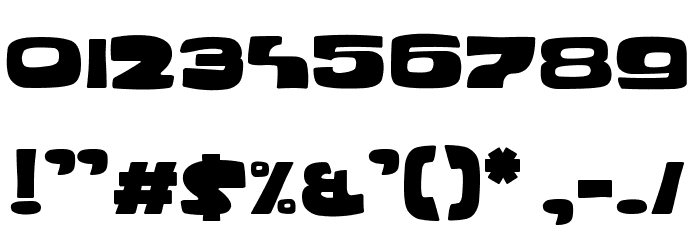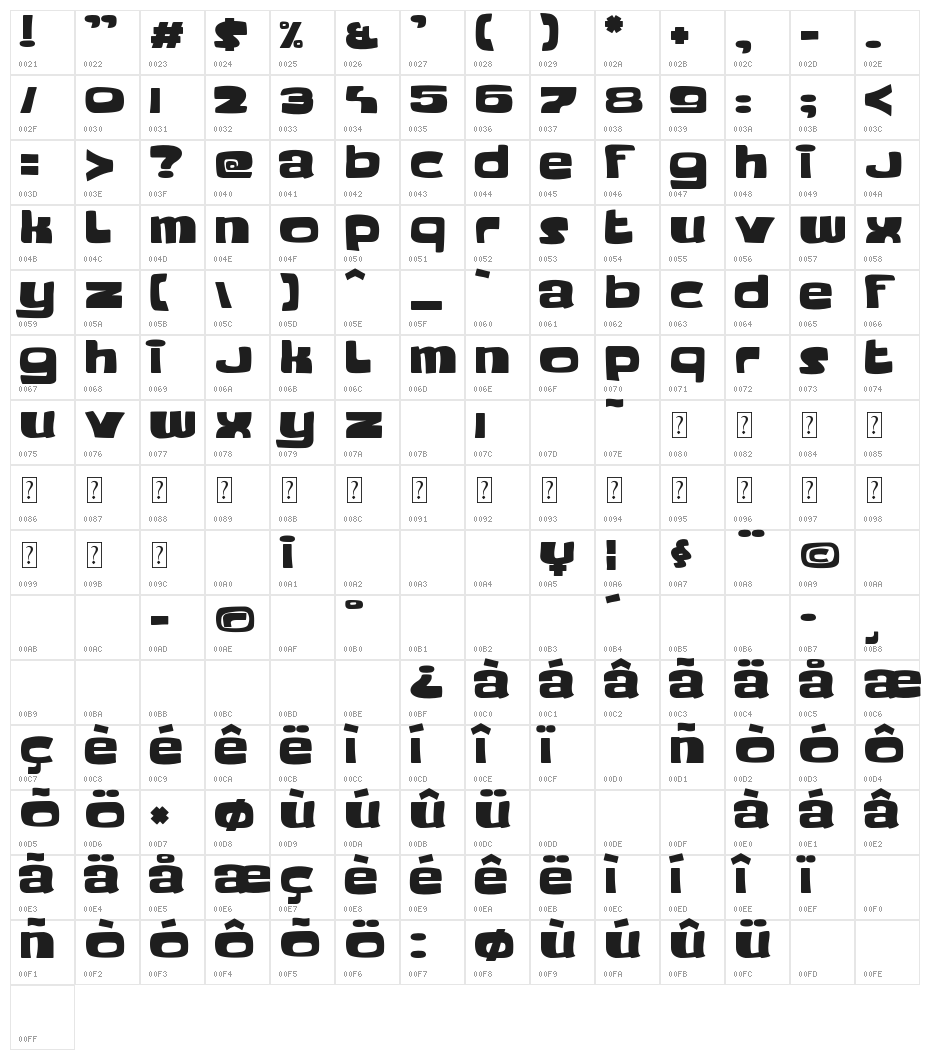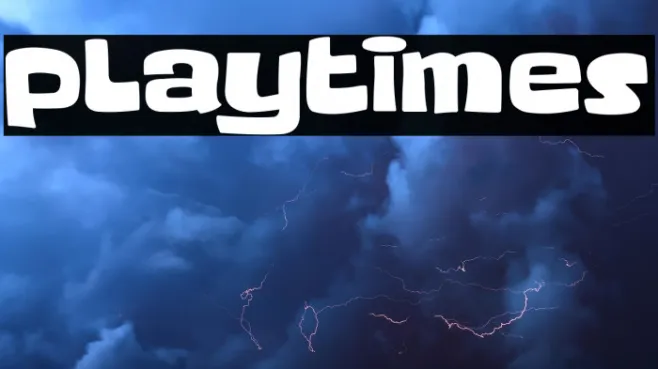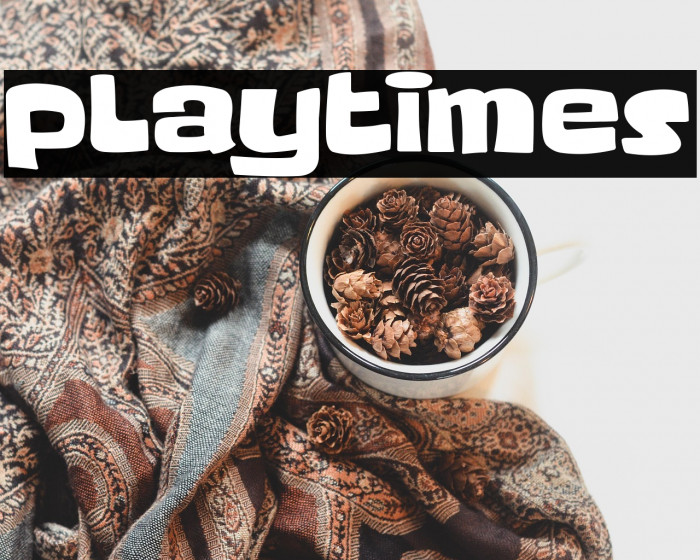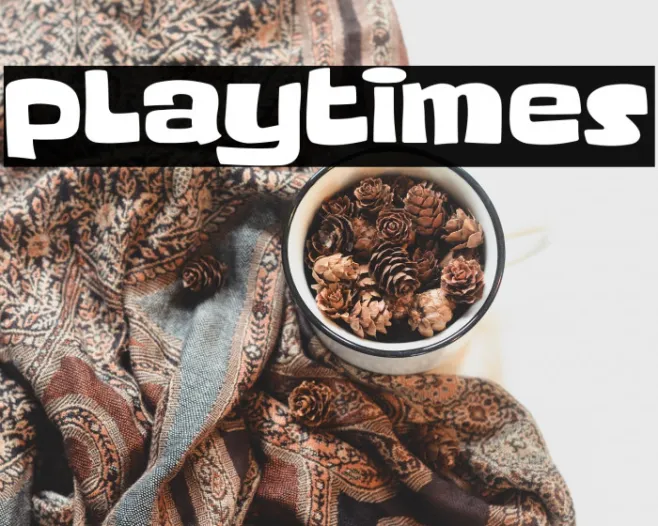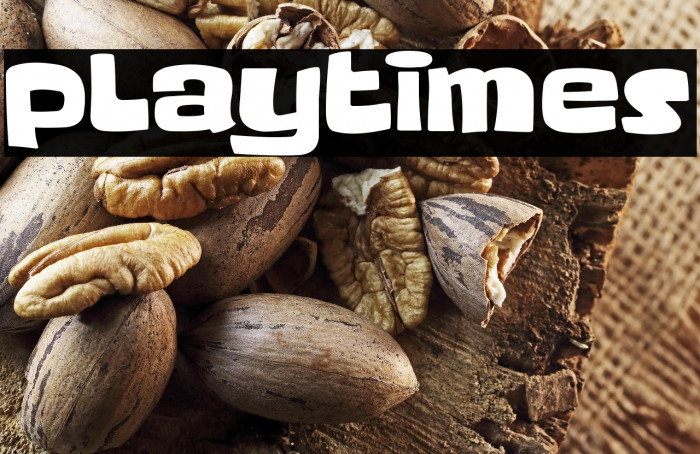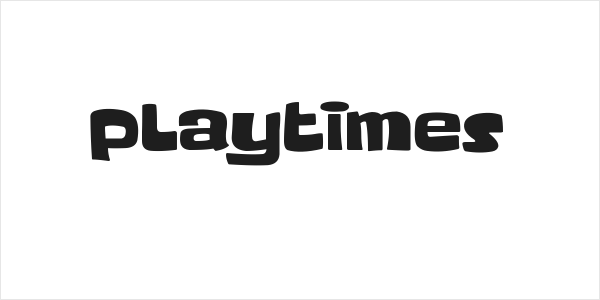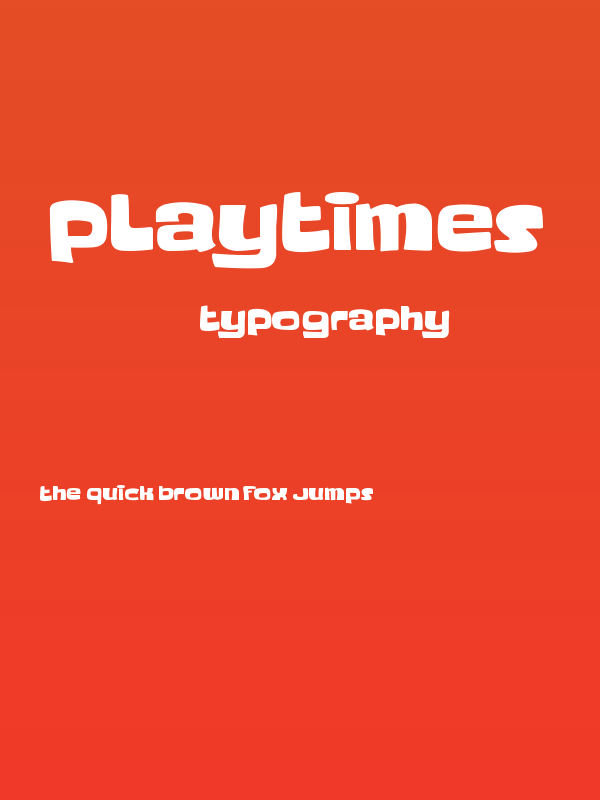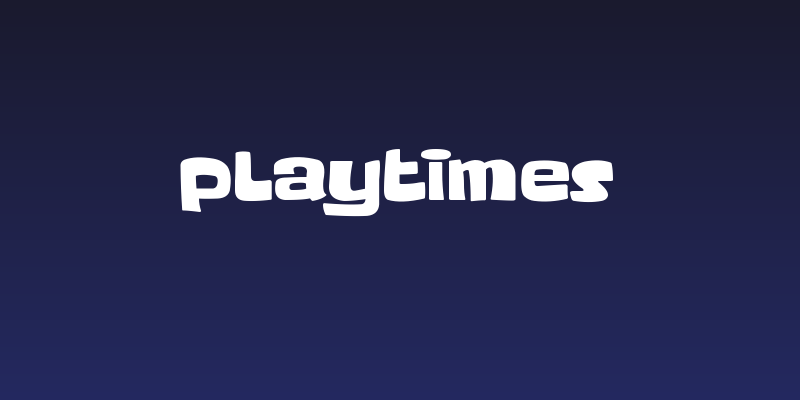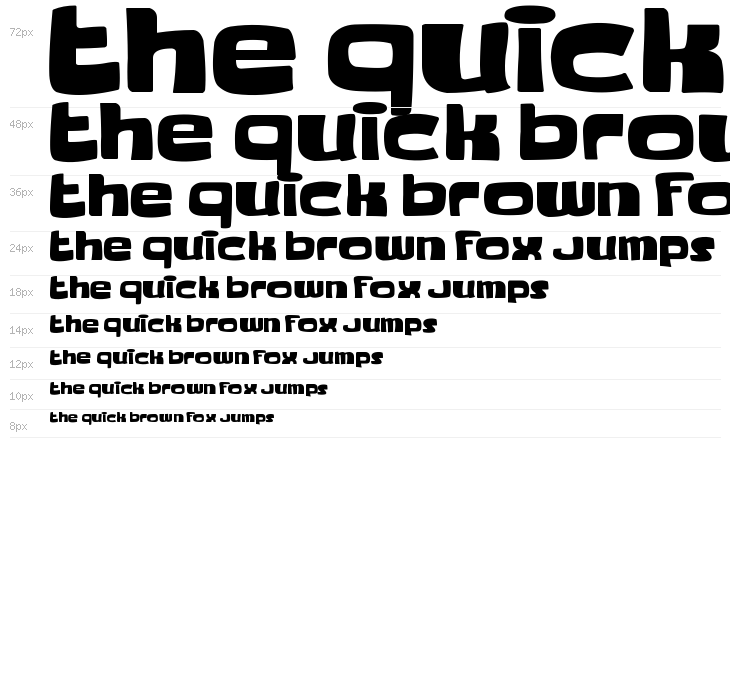
Playtimes Font
Playtimes Description
This playful and bold font features rounded, chunky characters that exude a sense of fun and whimsy. The letters are slightly irregular, giving them a hand-drawn feel that adds to their charm. The font is highly legible, with each character distinct and easily recognizable. Its thick strokes and rounded edges make it ideal for capturing attention, while the playful design makes it perfect for projects aimed at children or those seeking a lighthearted tone. The font includes a full set of uppercase and lowercase letters, numbers, and a variety of special characters, ensuring versatility in its use.